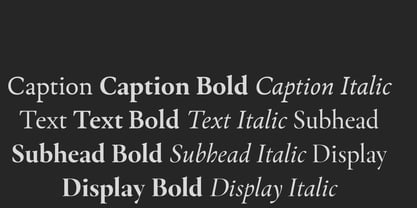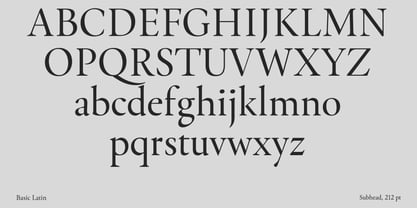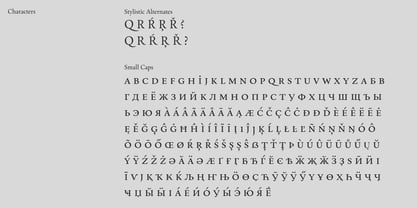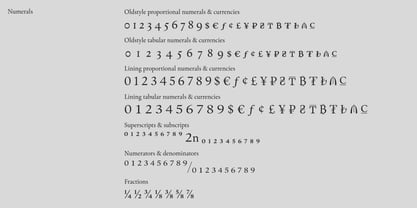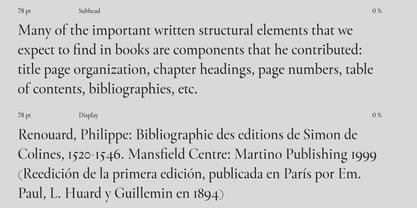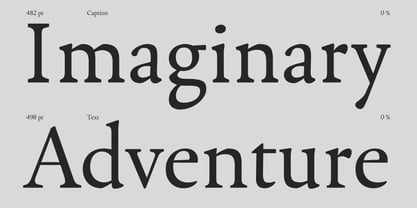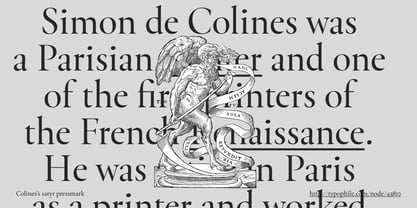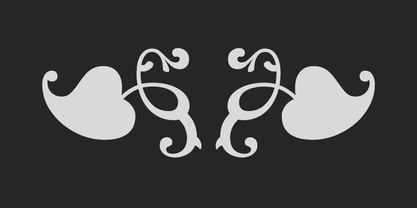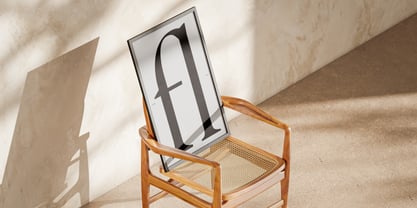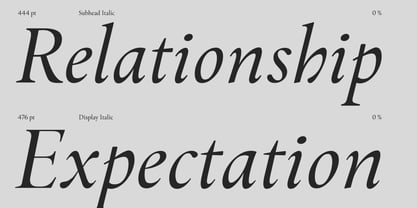
Simon
Simon is a revival of the typefaces by Simon de Colines, the French punchcutter and printer of the 16th century. It’s a calm and soft serif that works well in book printing as well as in historical, cultural, and fashion projects.
Styles & Optical Sizes. Simon contains 15 styles, including upright and italic styles in four optical sizes—Caption, Text, Subhead, and Display—combined into a variable version.
Character Set. The typeface supports extended Latin and extended Cyrillic. It includes small capitals, six figure styles, currency symbols, non-standard ligatures, and localized alternates for Bulgarian, Serbian, Bashkir, Chuvash, and Polish.
It features lining, old-style, tabular, proportional, superior, and inferior figures, as well as small capitals figures in the upright styles. Simon also includes case-sensitive punctuation—dashes and quotation marks automatically adjust when typing in all caps.
How to Use It. Simon is great for book printing, magazines, and poetry. The Display styles are the perfect fit for covers. All in all, the typeface is quite versatile and suits different areas, such as fashion branding, restaurant menus, or cosmetic packaging.
To maximize the use of Simon, choose the right optical size. Display and Subhead are more expressive, while Text and Caption make texts in small point sizes easier to read. The variable version of the typeface allows you to adjust the optical size to your needs.
Primary font characteristics are as follows:
• 4 optical sizes: Caption, Text, Subhead, and Display
• 15 styles, each with 900+ glyphs
• 25+ OpenType features, including Small Capitals
• Supports 200+ languages, including Extended Latin and Cyrillic
• Variable fonts
Designers. Simon was designed by Krista Radoeva and finalized by Dmitry Goloub and Alexander Lubovenko.